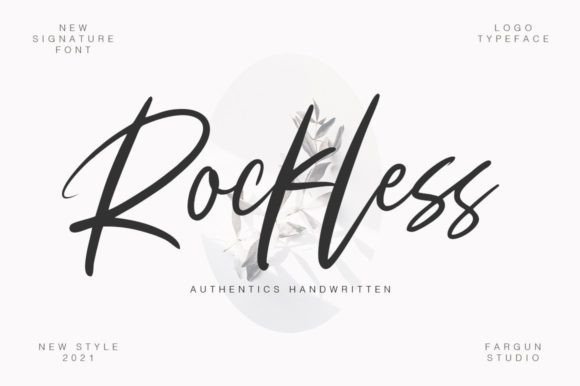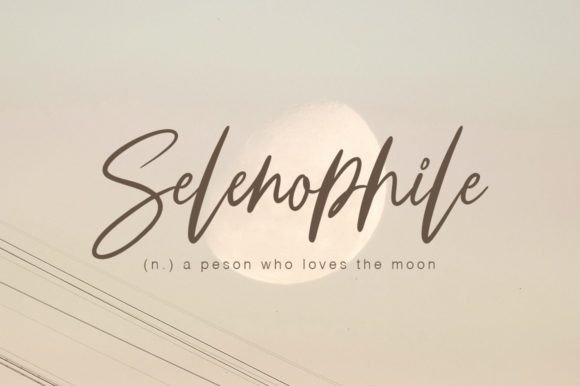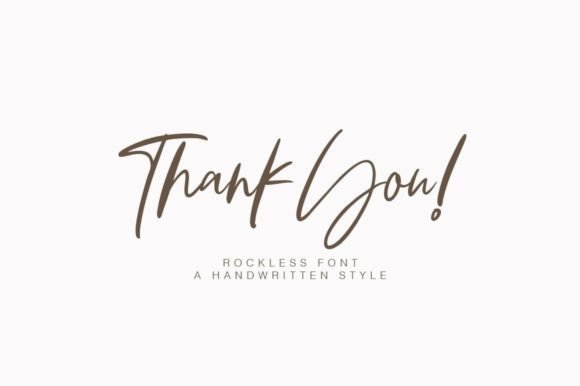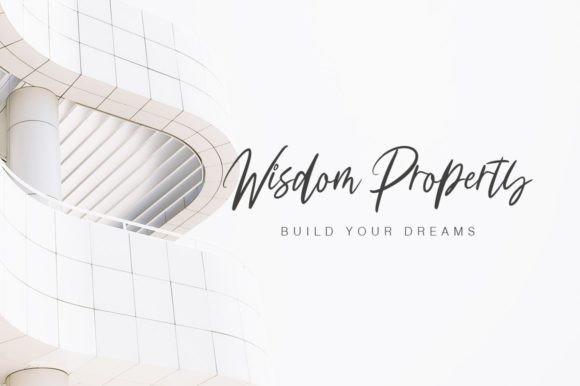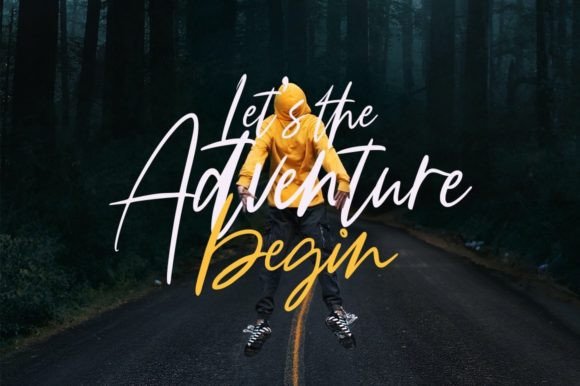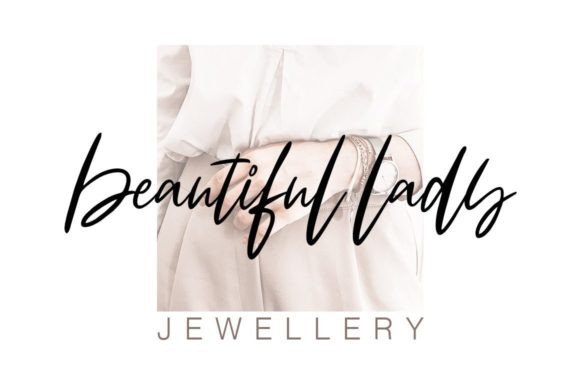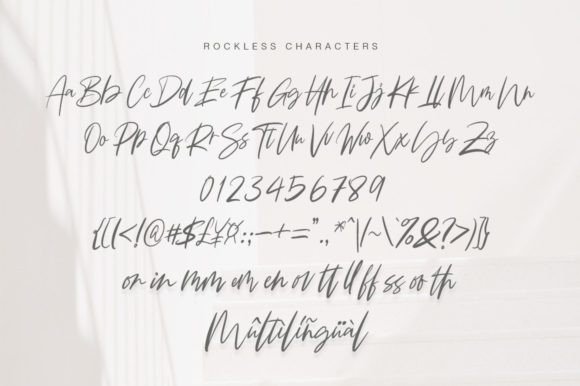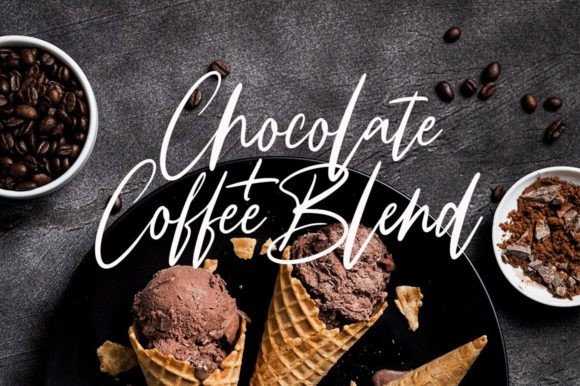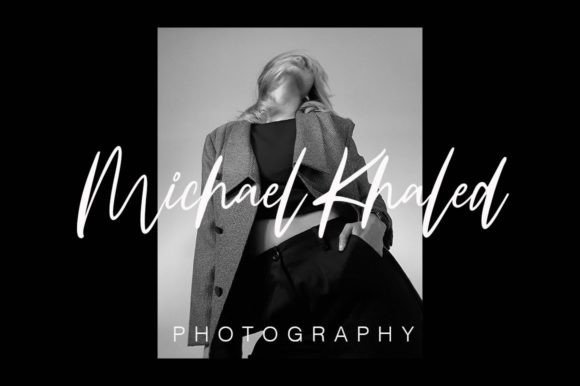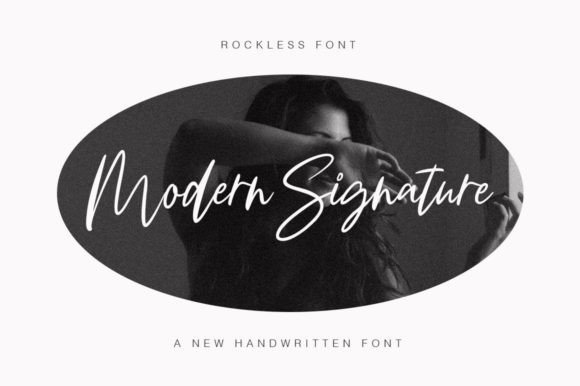
Rockless Font
About Rockless Font
“Rockless: Where Authenticity Meets Elegance in Handwritten Typography
Introducing Rockless, an authentic handwritten font that dances gracefully along the baseline, adding a classic and elegant touch to your designs. With its genuine charm and effortless style, Rockless becomes the perfect choice for your headings, signatures, logos, wedding invitations, T-shirts, letterheads, labels, news, posters, badges, and more. Let Rockless elevate your creations and make them outstanding with its timeless beauty and undeniable appeal.
The allure of Rockless lies in its authenticity, where every stroke carries the essence of genuine handwritten elegance. The dancing baseline adds a touch of playfulness and movement, creating a visual rhythm that captures the eye and the heart. Imagine your logos adorned with Rockless’s flowing, graceful letterforms, exuding sophistication and creativity. Picture your wedding invitations featuring its classic and elegant touch, setting the tone for a memorable celebration. With Rockless, your designs come to life, resonating with an undeniable sense of authenticity and grace.
One of Rockless’s standout features is its versatility. Its timeless elegance and handwritten charm make it suitable for a wide array of design applications. Whether you’re designing for digital platforms or printed materials, Rockless enhances your creations with its effortless appeal, making them stand out with a unique blend of authenticity and elegance. Let your letterheads, labels, news articles, and posters be transformed into visually captivating masterpieces, leaving a lasting impression on your audience.
Moreover, Rockless is more than just a font; it’s an embodiment of genuine creativity and sophisticated elegance. Its authenticity and handwritten charm resonate with individuals who appreciate the beauty of timeless design, making it a favorite among designers and enthusiasts seeking a font that effortlessly combines authenticity and classic elegance. Rockless becomes a symbol of your creativity, allowing you to create designs that not only catch the eye but also touch the soul with a touch of timeless beauty.
In a world where authenticity meets elegance in handwritten typography, Rockless helps you make a statement. It speaks the language of genuine creativity and refined expression, resonating with those who appreciate the beauty of classic design and genuine charm. Whether you’re designing for digital platforms, branding, or special events, Rockless becomes your trusted companion, guiding you toward design excellence.
So, why settle for ordinary when you can embrace the extraordinary with Rockless? Let this authentic handwritten font be the canvas for your creative expressions, and watch as your projects come to life with genuine authenticity, timeless elegance, and effortless charm. Let your creativity flow, and let Rockless be the brushstroke that paints your ideas into visually captivating masterpieces, leaving a lasting impression on the hearts of your audience. Elevate your designs with Rockless, where authenticity meets elegance in handwritten typography, and transform your creations into works of art that resonate with the genuine spirit of classic creativity.”